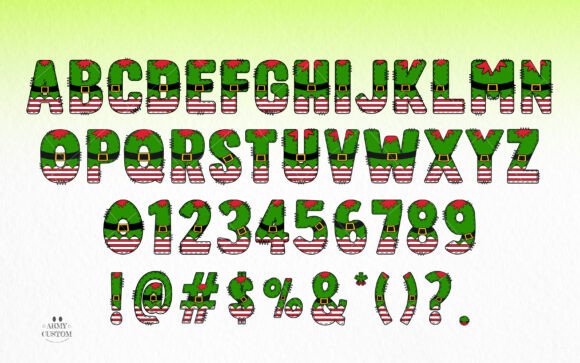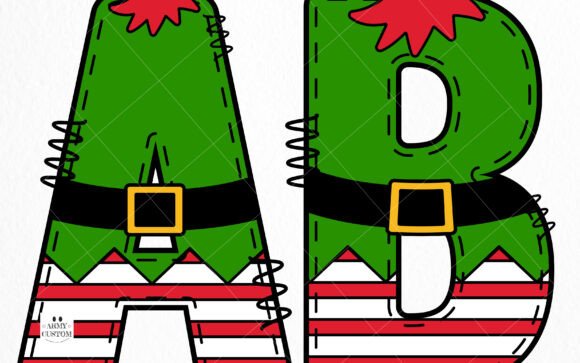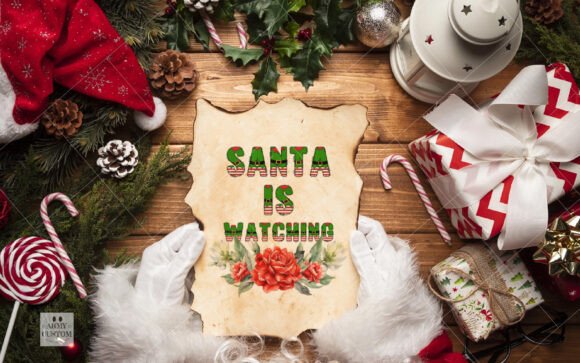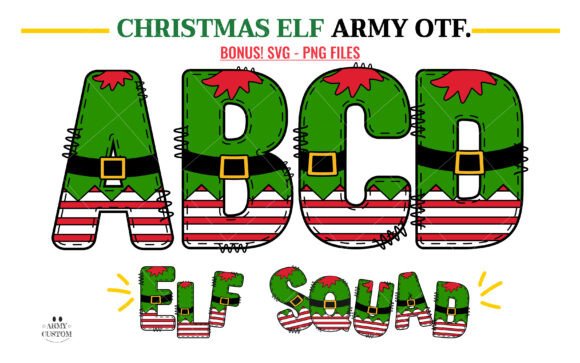
Introducing the Christmas Elf Army Font: A Whimsical Addition to Your Holiday Design Toolkit
The holiday season is upon us, and with it comes the desire to create festive and fun designs that capture the spirit of Christmas. If you’re a designer or crafter looking to elevate your holiday projects, look no further than the Christmas Elf Army Font. This delightful font is imbued with a sense of whimsy, making it a playful addition to your holiday design toolkit.
A Font Inspired by Santa’s Helpers
The Christmas Elf Army Font is inspired by the adorable antics of Santa’s helpers, bringing a sense of joy and merriment to any design project. Its jovial style makes it an ideal choice for creating vibrant holiday decorations or adding a dash of festivity to any design. With this font, every letter spelled out becomes a joyous celebration, perfect for getting you in the mood for the holiday season.
Elevate Your Holiday Projects
With the Christmas Elf Army Font, you can take your holiday projects to the next level. Whether you’re creating festive decorations, holiday cards, or social media graphics, this font is sure to bring a smile to your face and a touch of magic to your designs. Its playful and whimsical style makes it perfect for:
- Holiday decorations, such as signs, banners, and garlands
- Festive cards and invitations
- Holiday-themed party decorations and accessories
Tips for Using the Christmas Elf Army Font
To get the most out of the Christmas Elf Army Font, here are a few tips to keep in mind:
- Experiment with different font sizes and colors to add visual interest to your designs
- Pair the Christmas Elf Army Font with other festive fonts to create a unique and eye-catching design
- Use the font to create custom holiday decorations, such as signs, banners, and garlands
- Don’t be afraid to get creative and try out new and innovative design ideas
The Christmas Elf Army Font is a delightful and whimsical addition to any holiday design toolkit. Its playful style and festive spirit make it perfect for creating vibrant holiday decorations, cards, and social media graphics. With its compatibility with a range of design programs, including Cricut Design Space, you can easily incorporate this font into your holiday projects. So why wait? Indulge in the spirit of the holiday season with the Christmas Elf Army Font and bring a touch of magic to your designs.